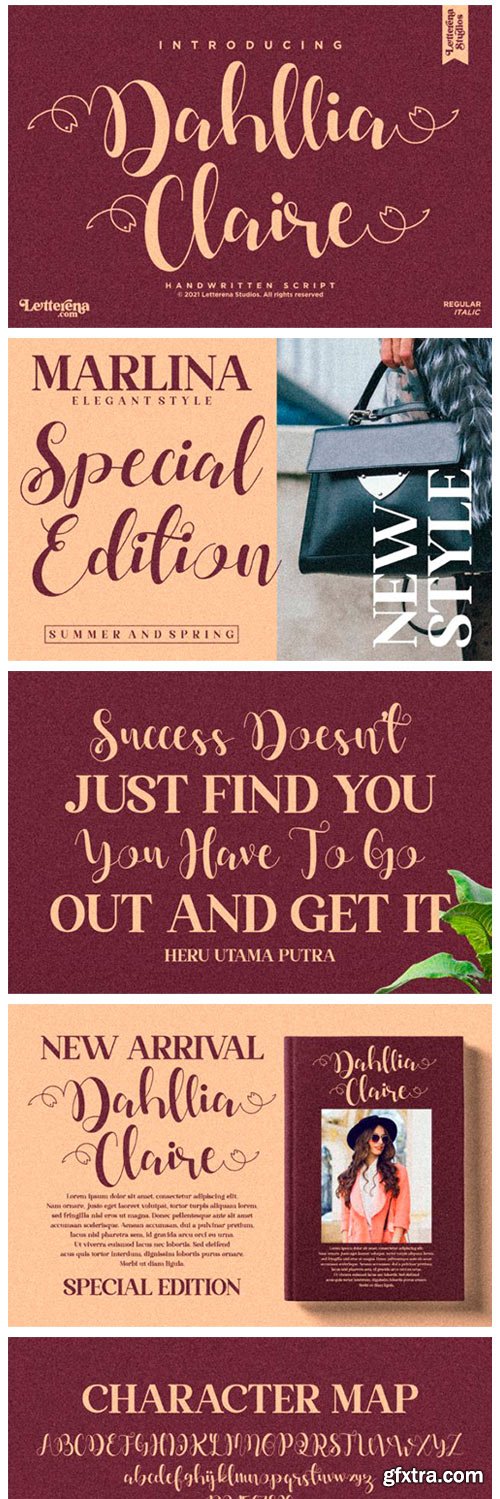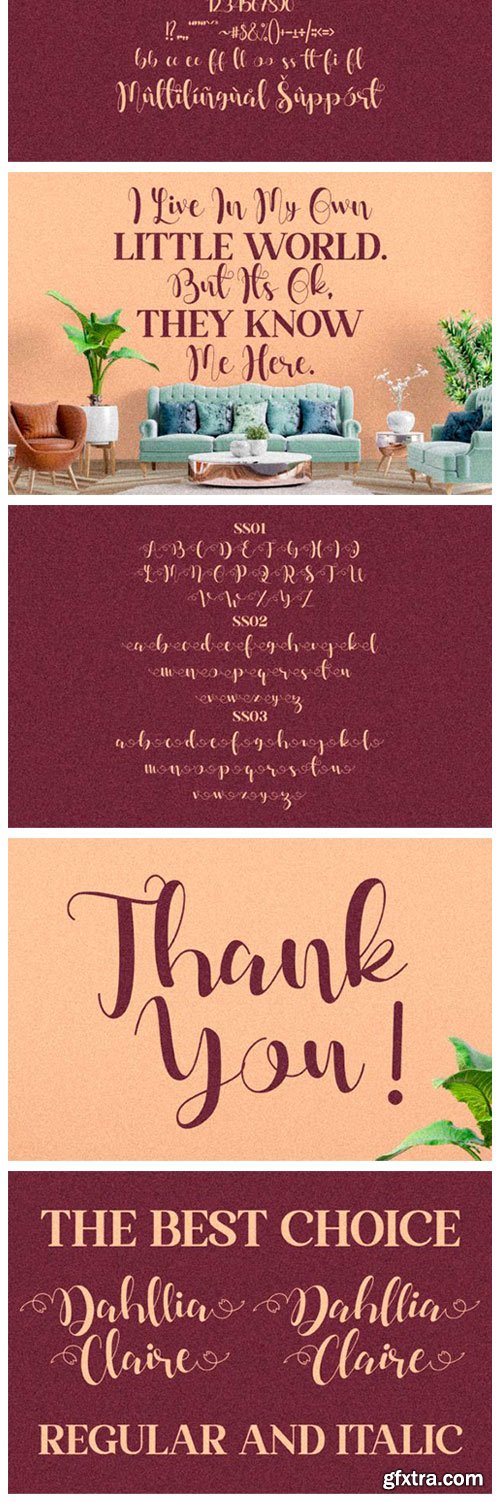
Dahllia Claire Font
Dahllia Claire is a bold and fun script font. Clean and a little bit quirky, this font is the perfect fit for all of your logos, branding, social media, and crafty DIY projects. This font is PUA encoded which means you can access all of the glyphs and swashes with ease!